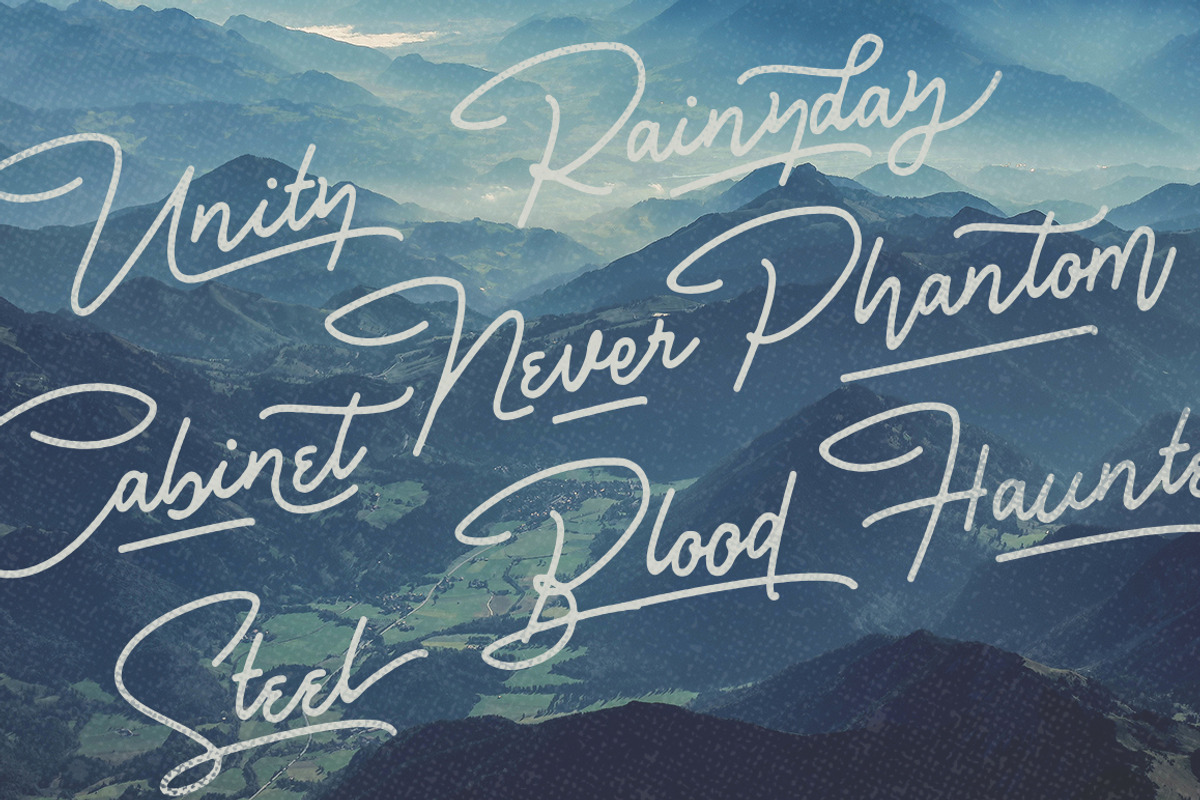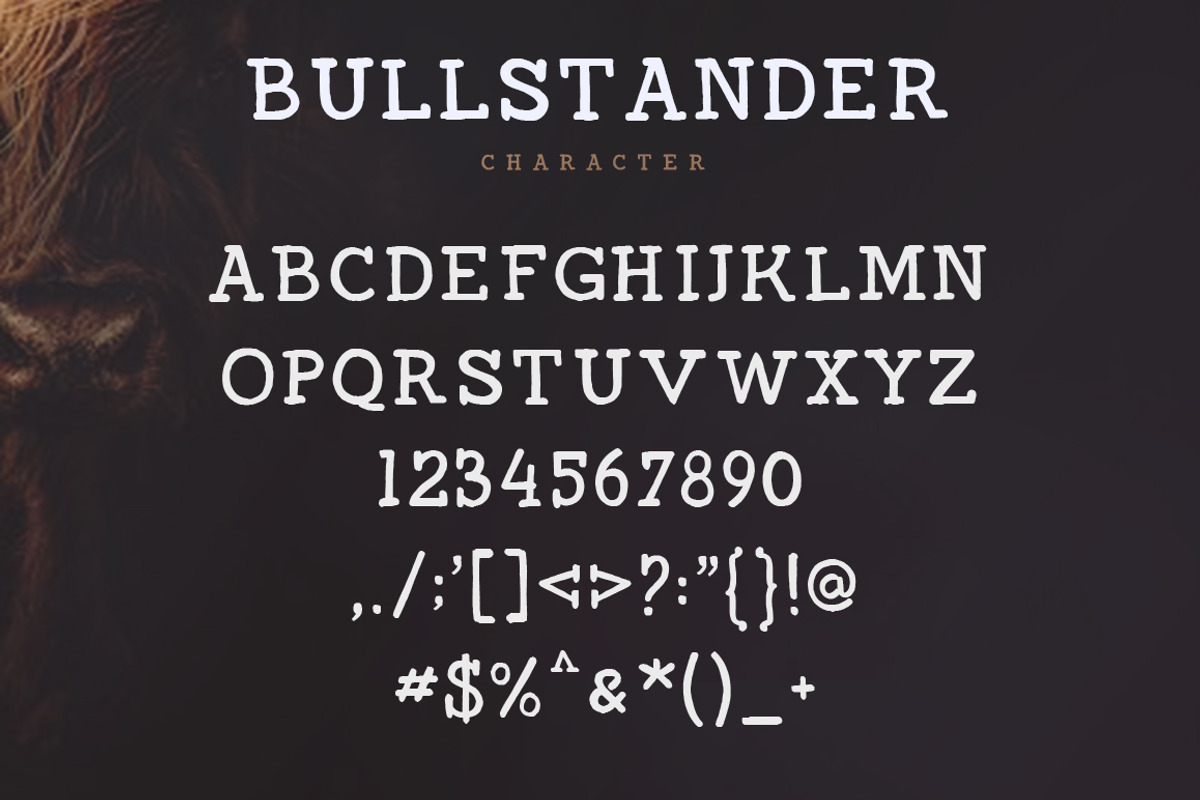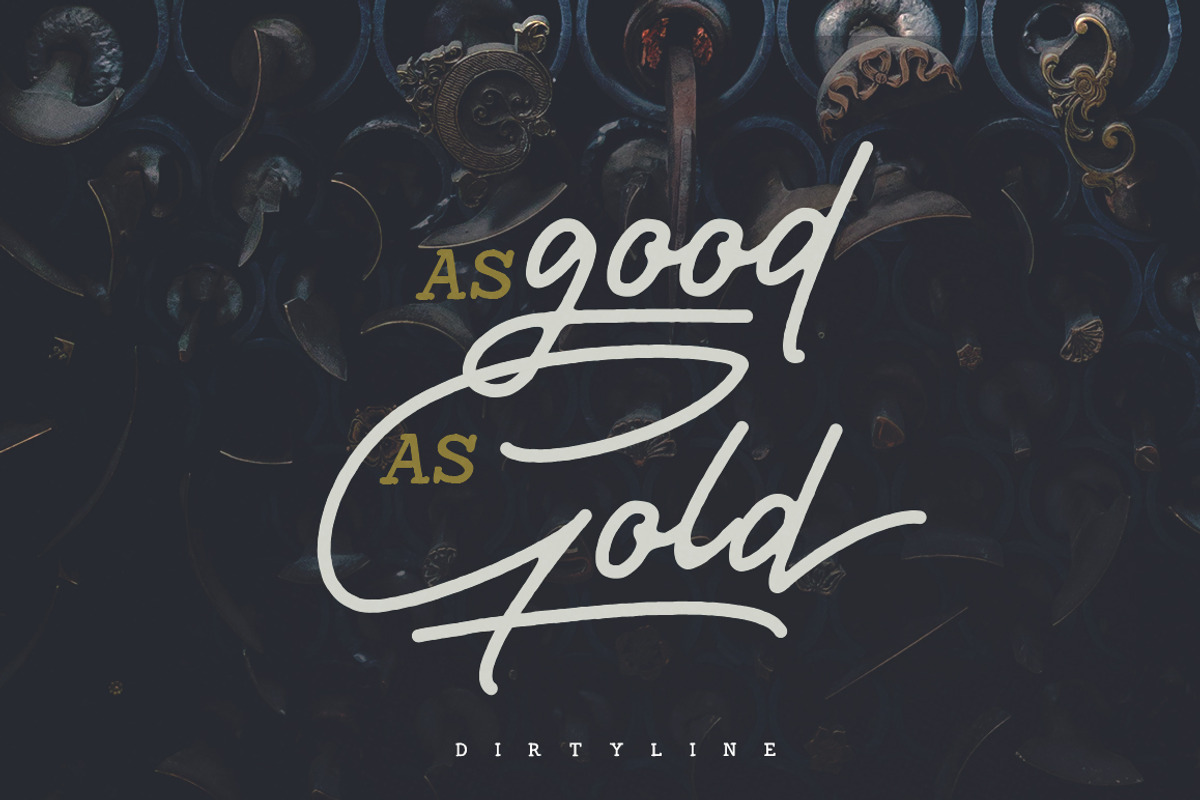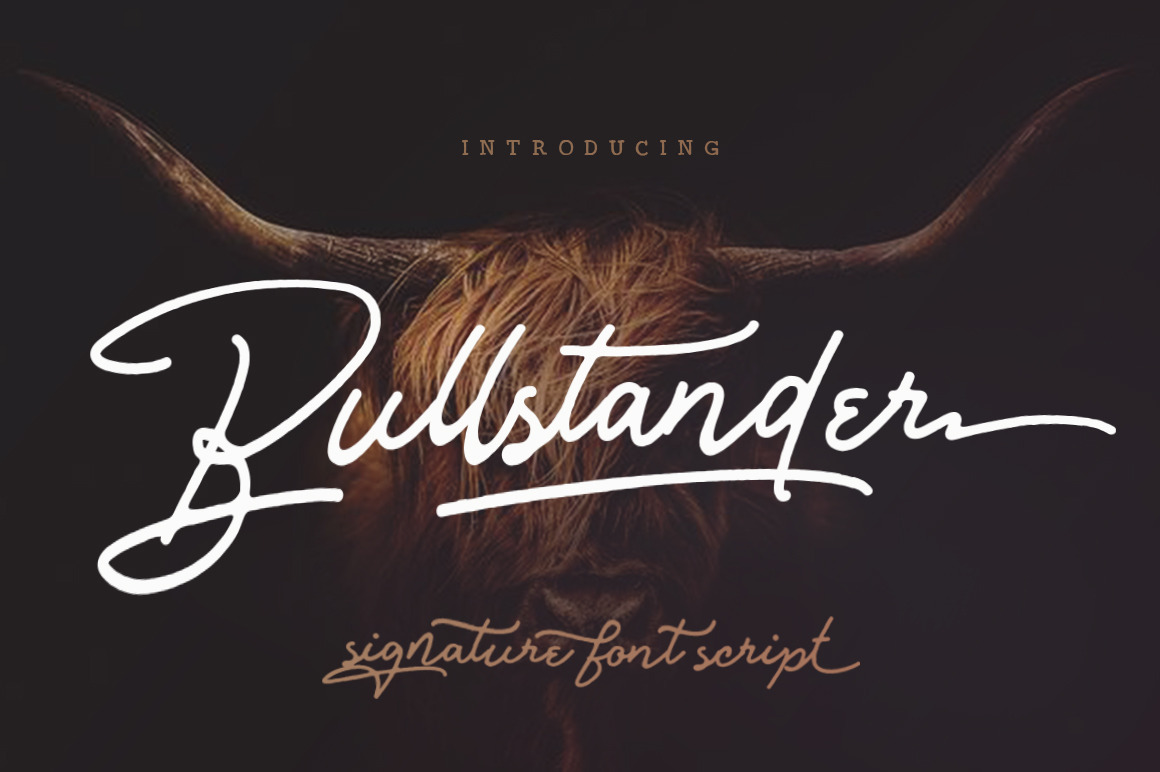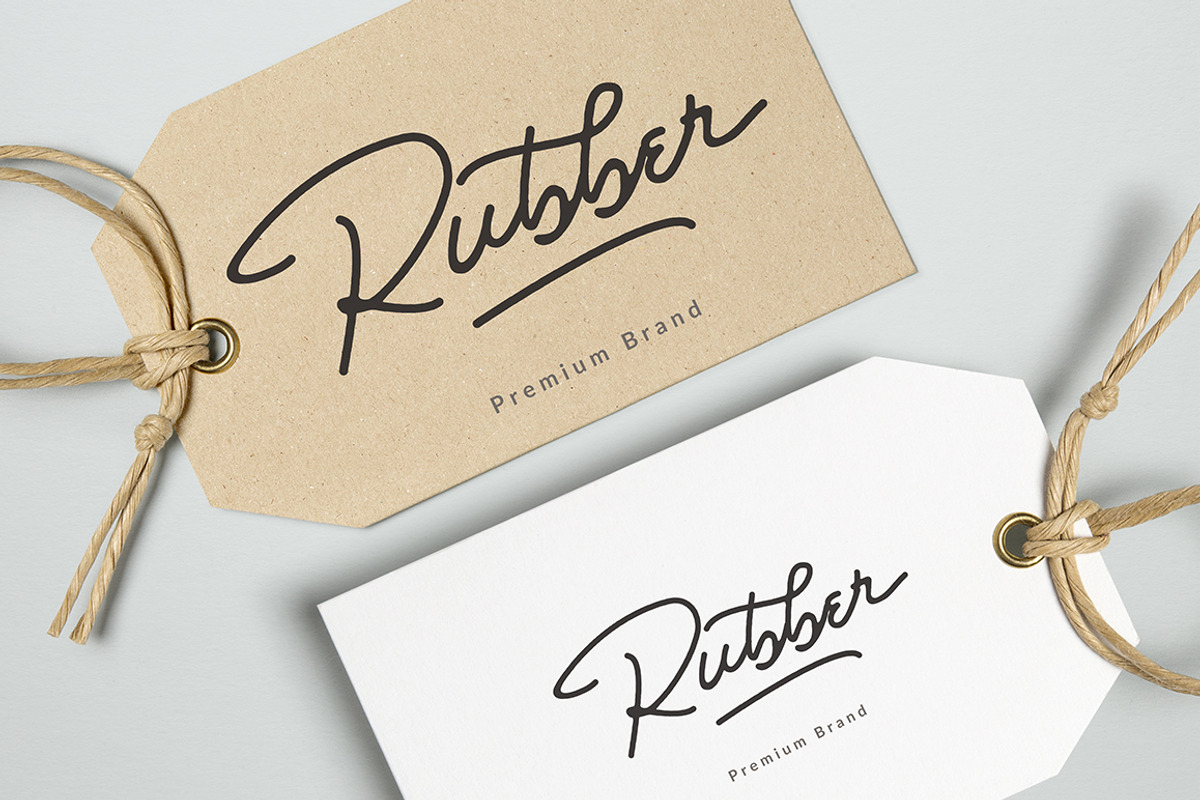
Proudly presents latest product Bullstander Font Set with 2 different style ‘script and slab’. These two lovely fonts would be perfect to combine in your design. with vintage style. The fonts are great for product logo,wedding card logo, clothing brand logo,Vintage design and much more.
- Bullstander Signature Font Style : A Rough monoline Script , with a casual character, but fancy attitude. Complete with multilanguage and more alternative and ligature, 352 Glyphs
- Bullstander SLAB Caps : A Rough SLAB All Caps with 230 Glyphs.
- Bullstander Swash
- Stylistic Set